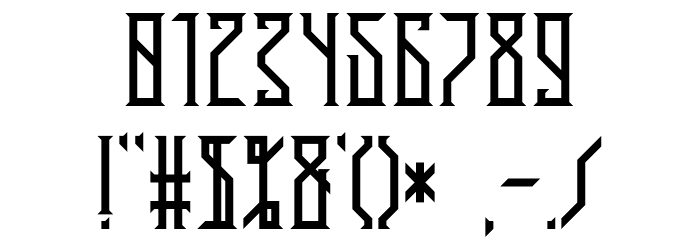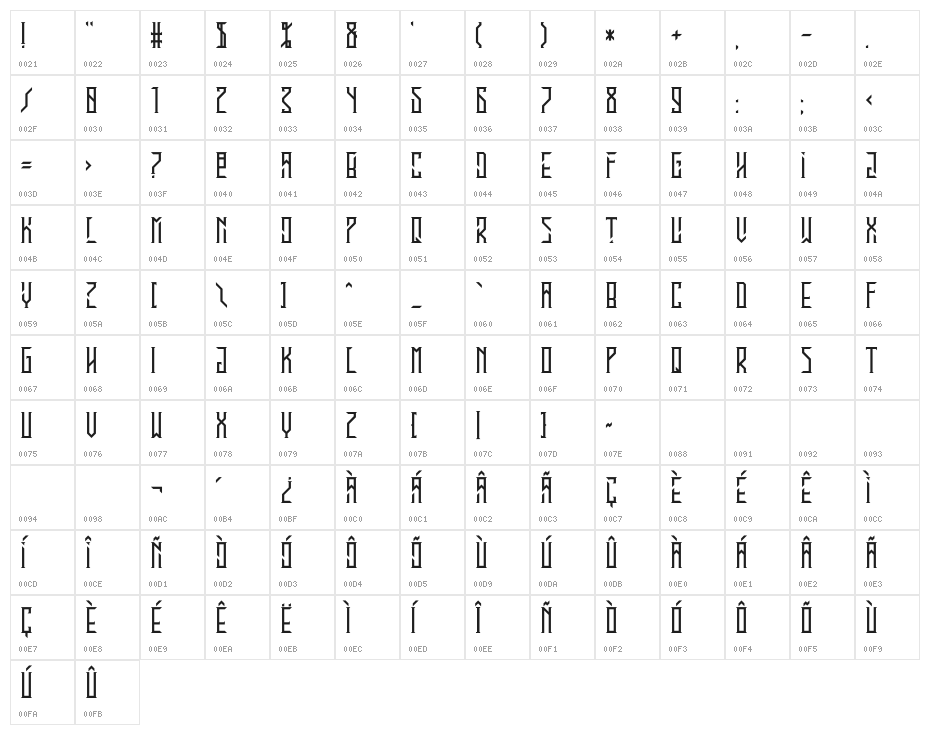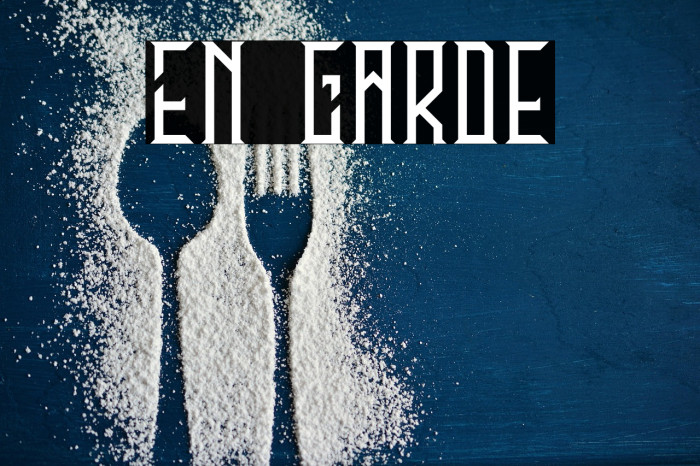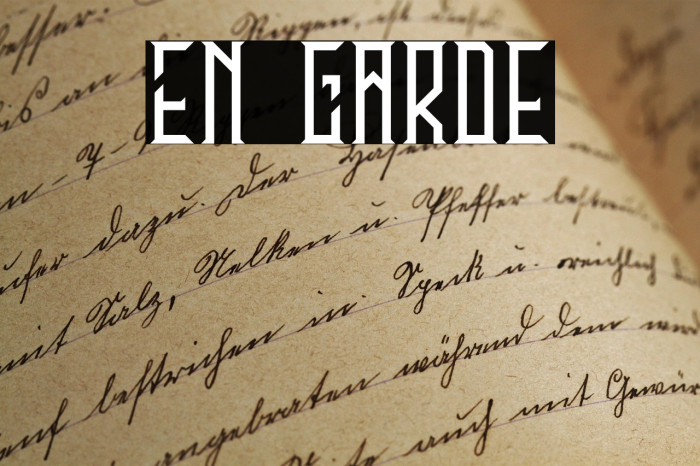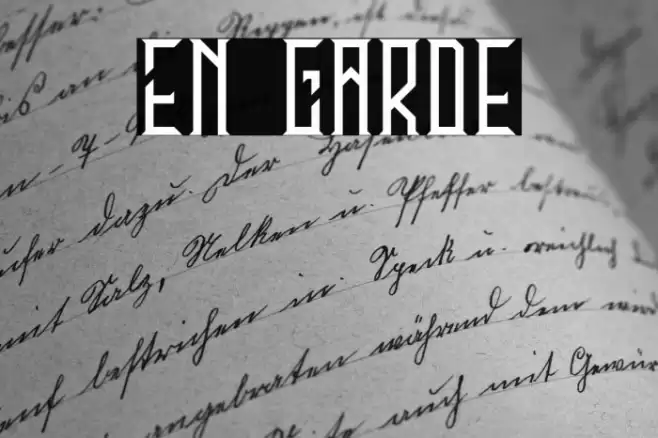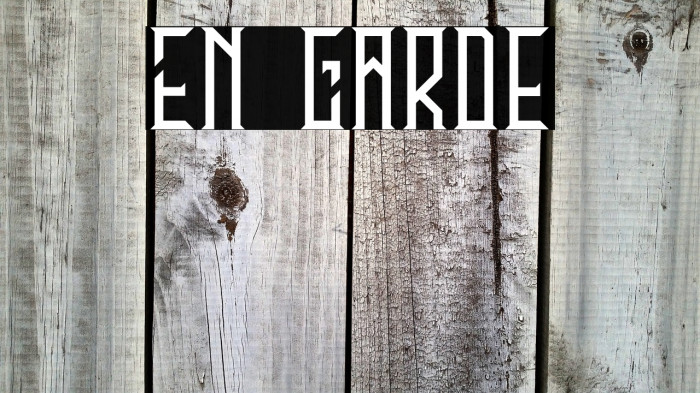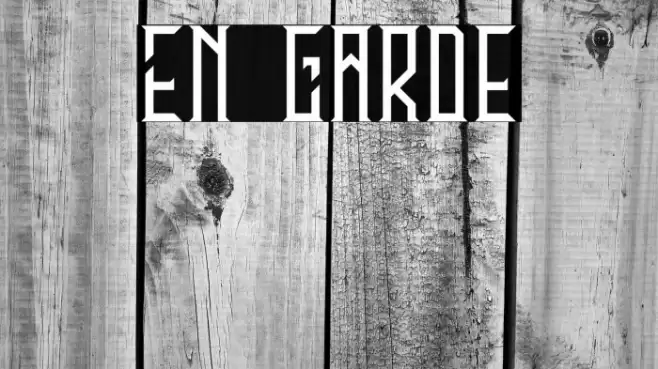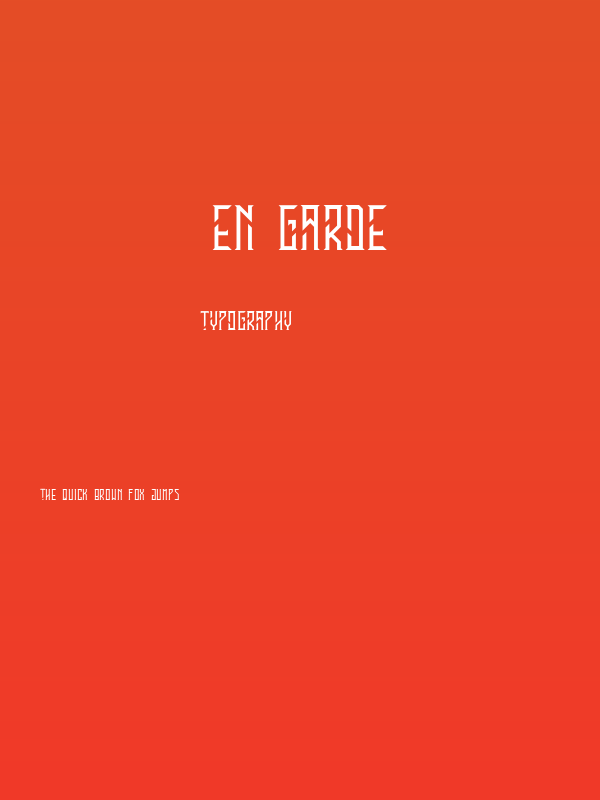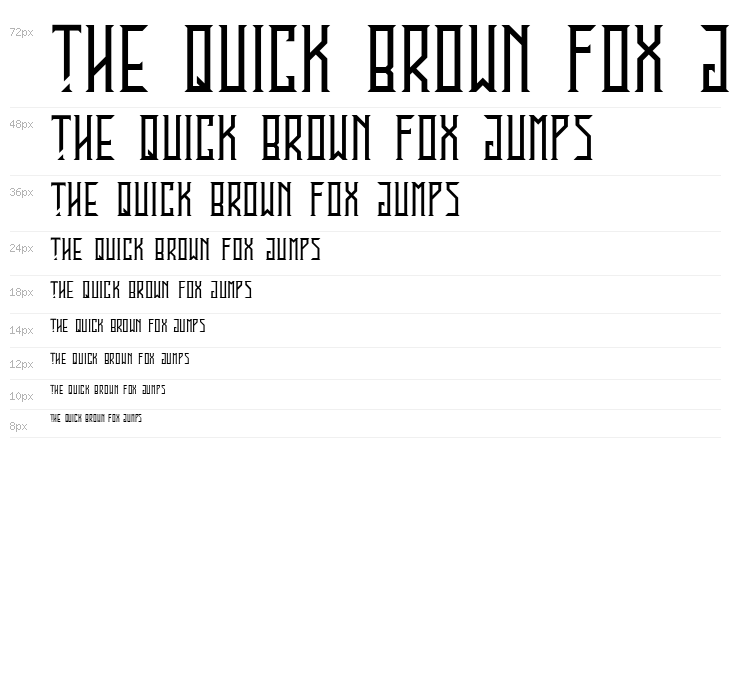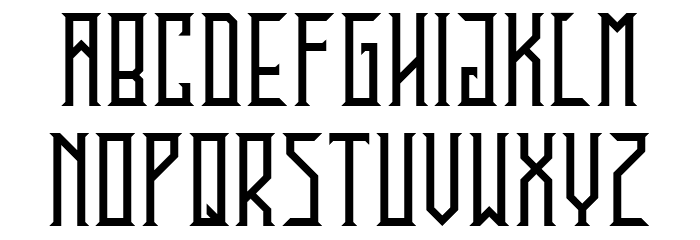
En Garde Font
En Garde Description
This font features a bold and striking design with sharp, angular lines and a geometric structure. The uppercase letters are tall and narrow, creating a sense of height and elegance. The characters have a unique, almost futuristic appearance, with certain letters incorporating diagonal cuts and pointed edges that add to its distinctiveness. The numbers and special characters maintain this cohesive style, ensuring consistency across all elements. This font's strong visual impact makes it suitable for attention-grabbing designs.